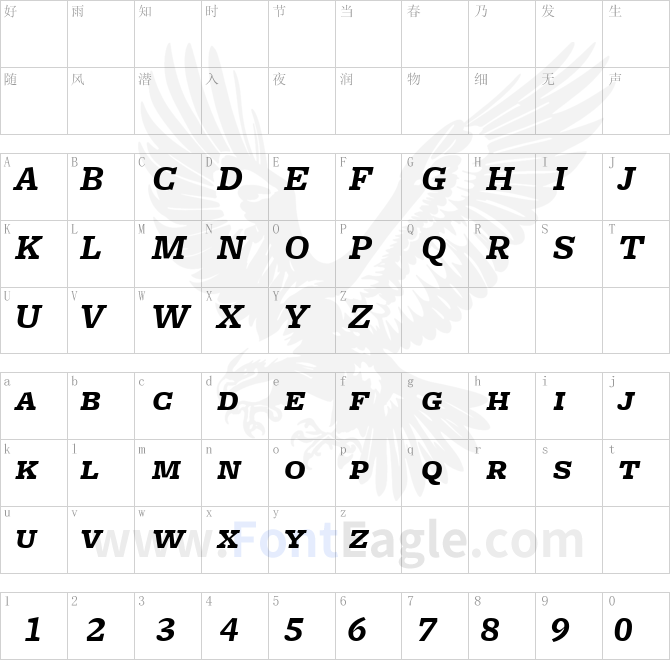
- Font name:FreightMicro BoldItalicSC
- Font Subfamily ID:JoshuaDarden&Phil’sFonts,Inc: FreightMicro BoldItalicSC: 2004
- Font Full Name:FreightMicro BoldItalicSC
- Postscript:FreightMicroBoldItalicSC